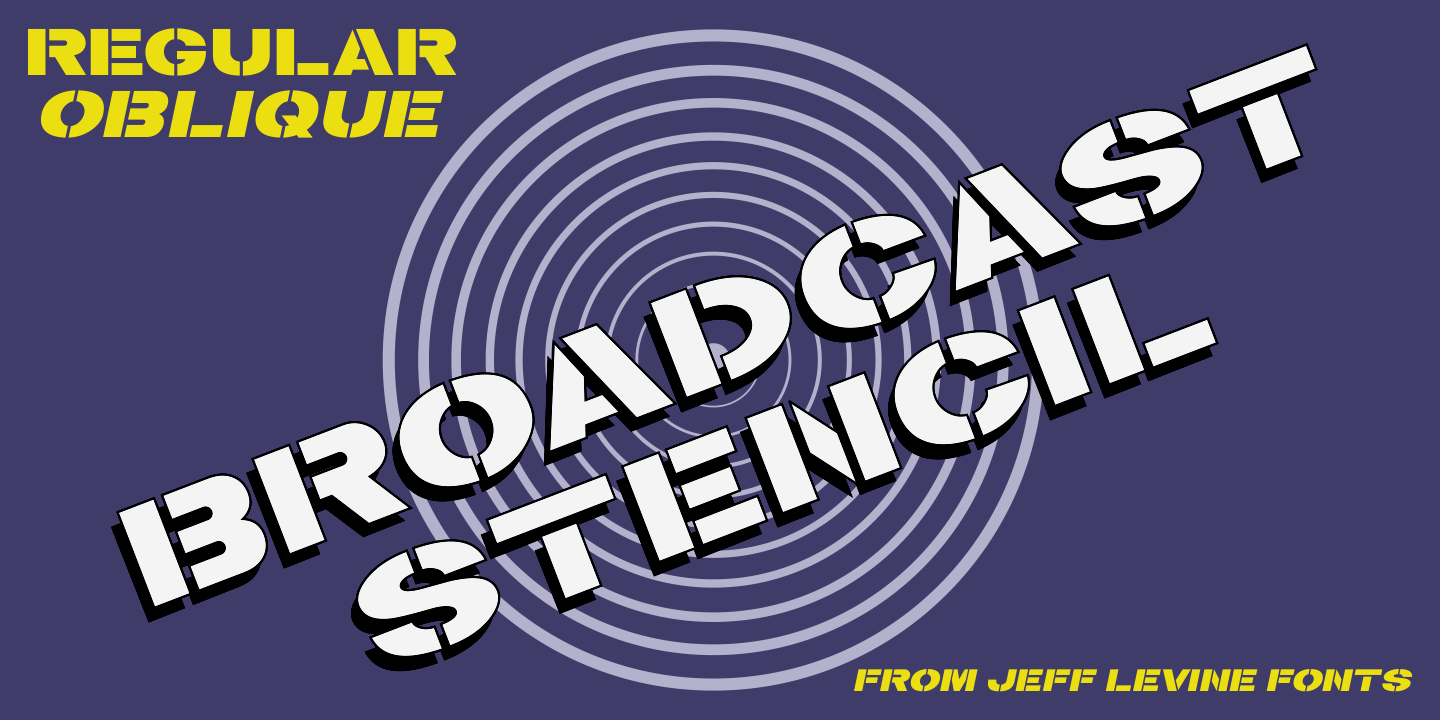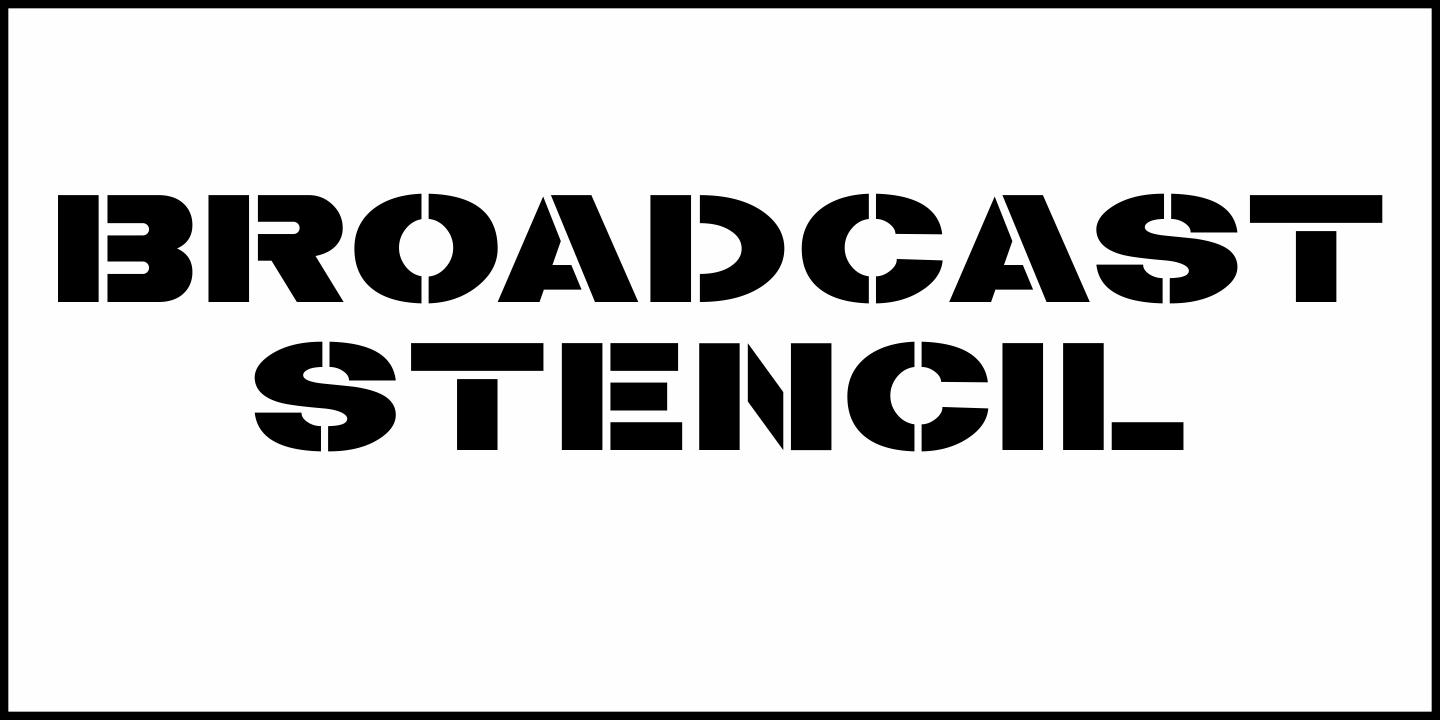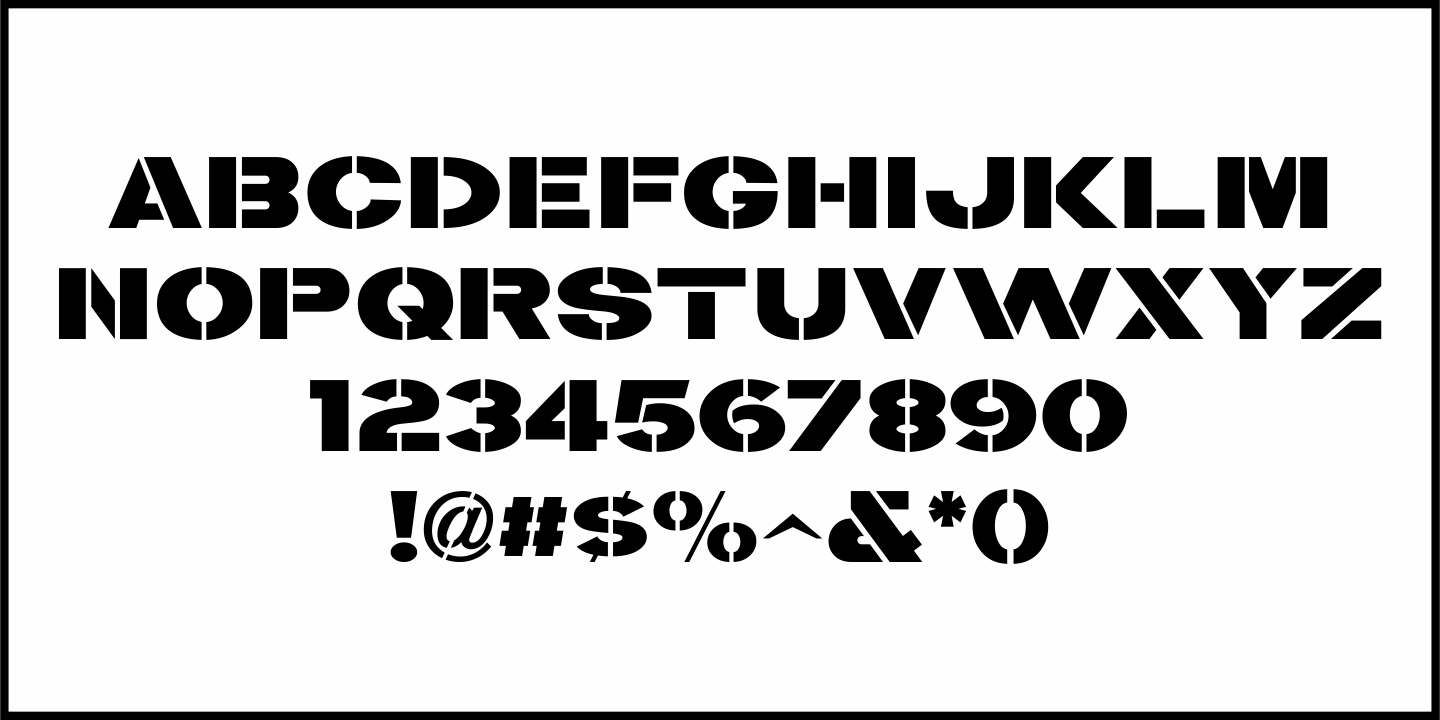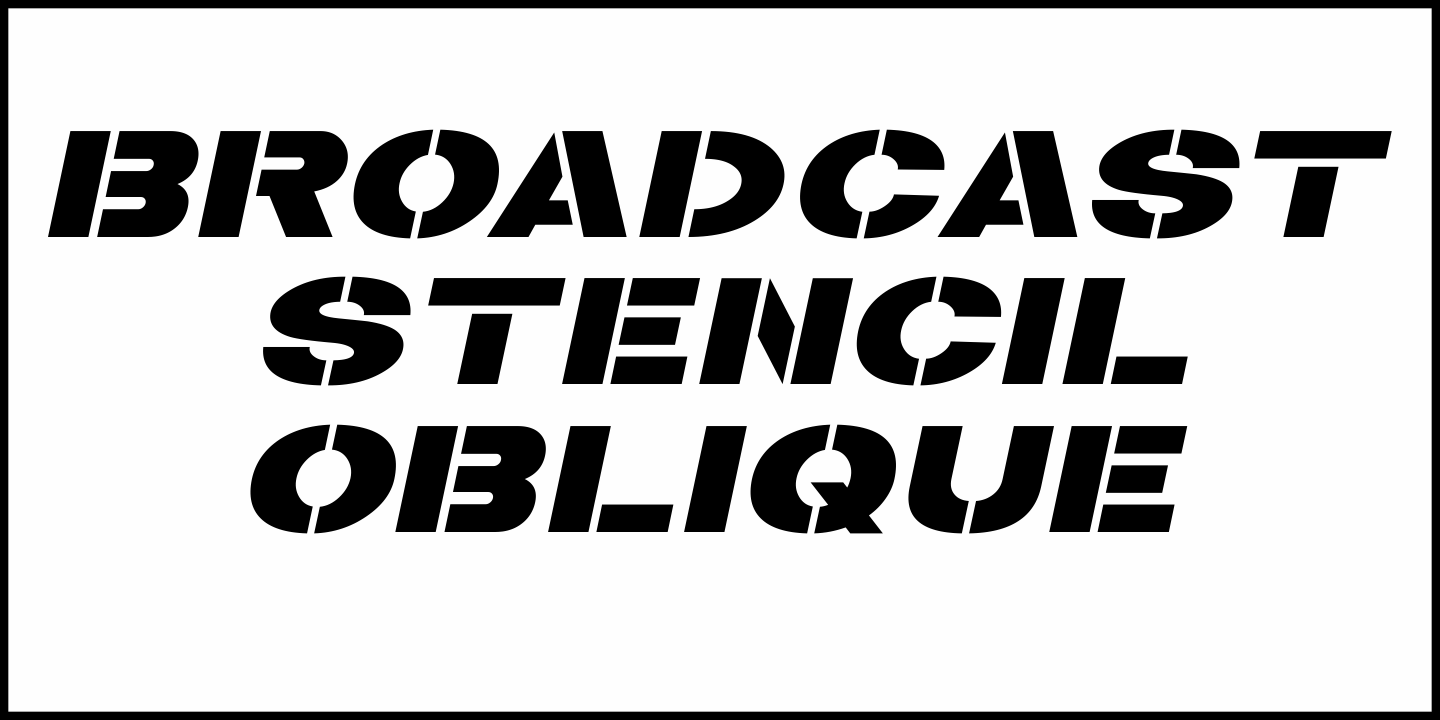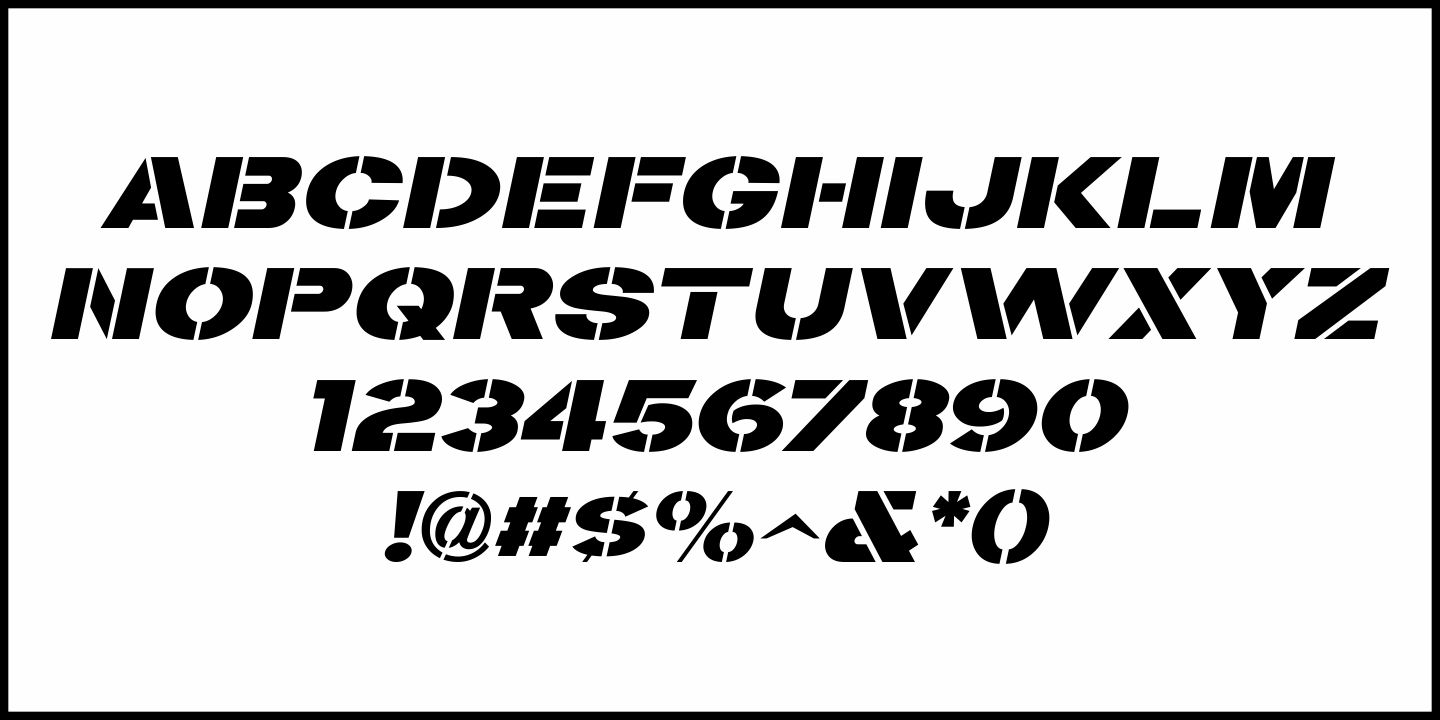
Broadcast Stencil
From a 1960 issue of Broadcast Magazine comes a wide, ultra bold sans stencil type design which was used in a Voice of America ad.
This 'workhorse' lettering served as the inspiration for Broadcast Stencil JNL, which is available in both regular and oblique versions.
Broadcast Stencil JNL Regular by Jeff Levine Fonts